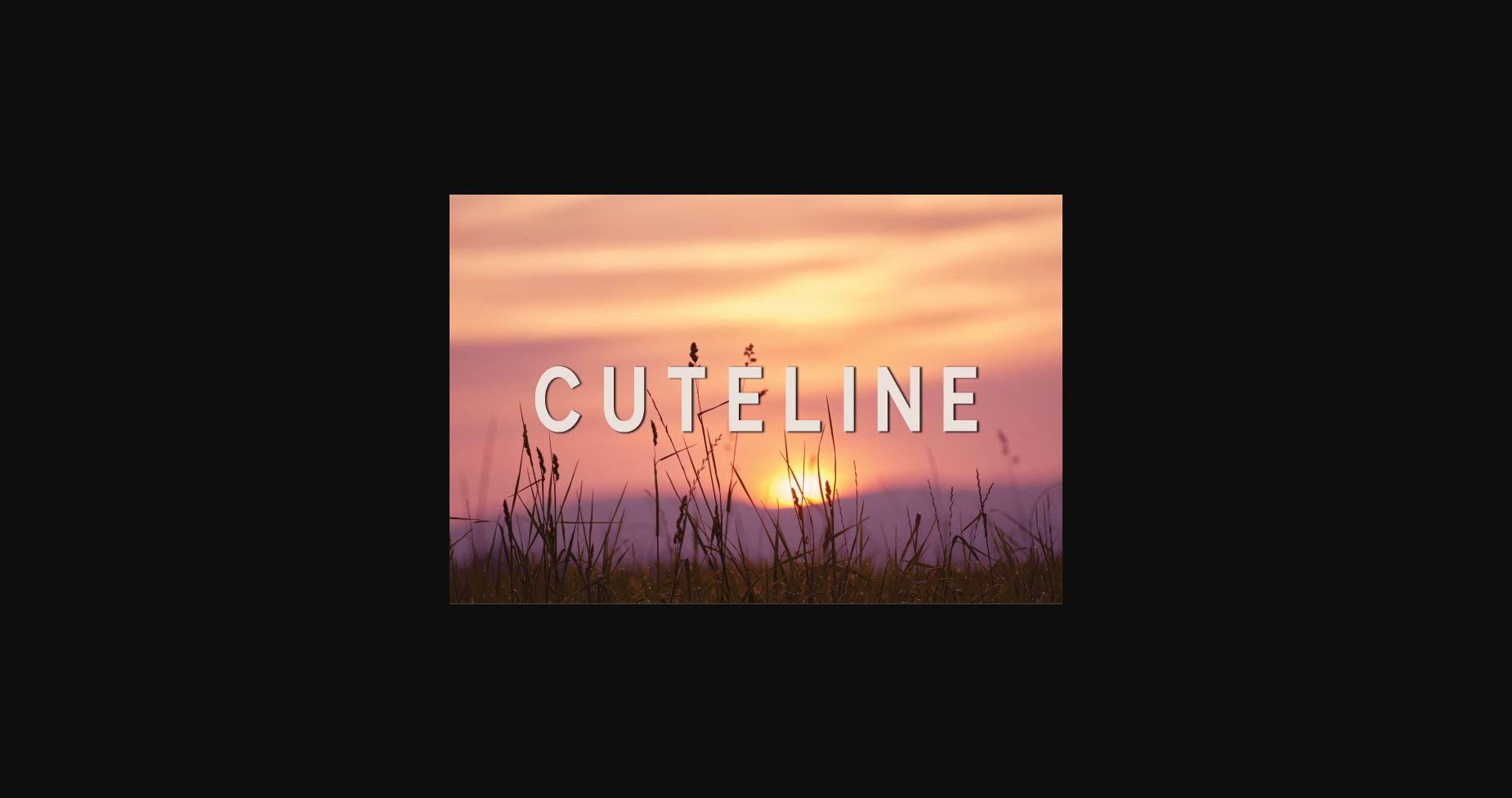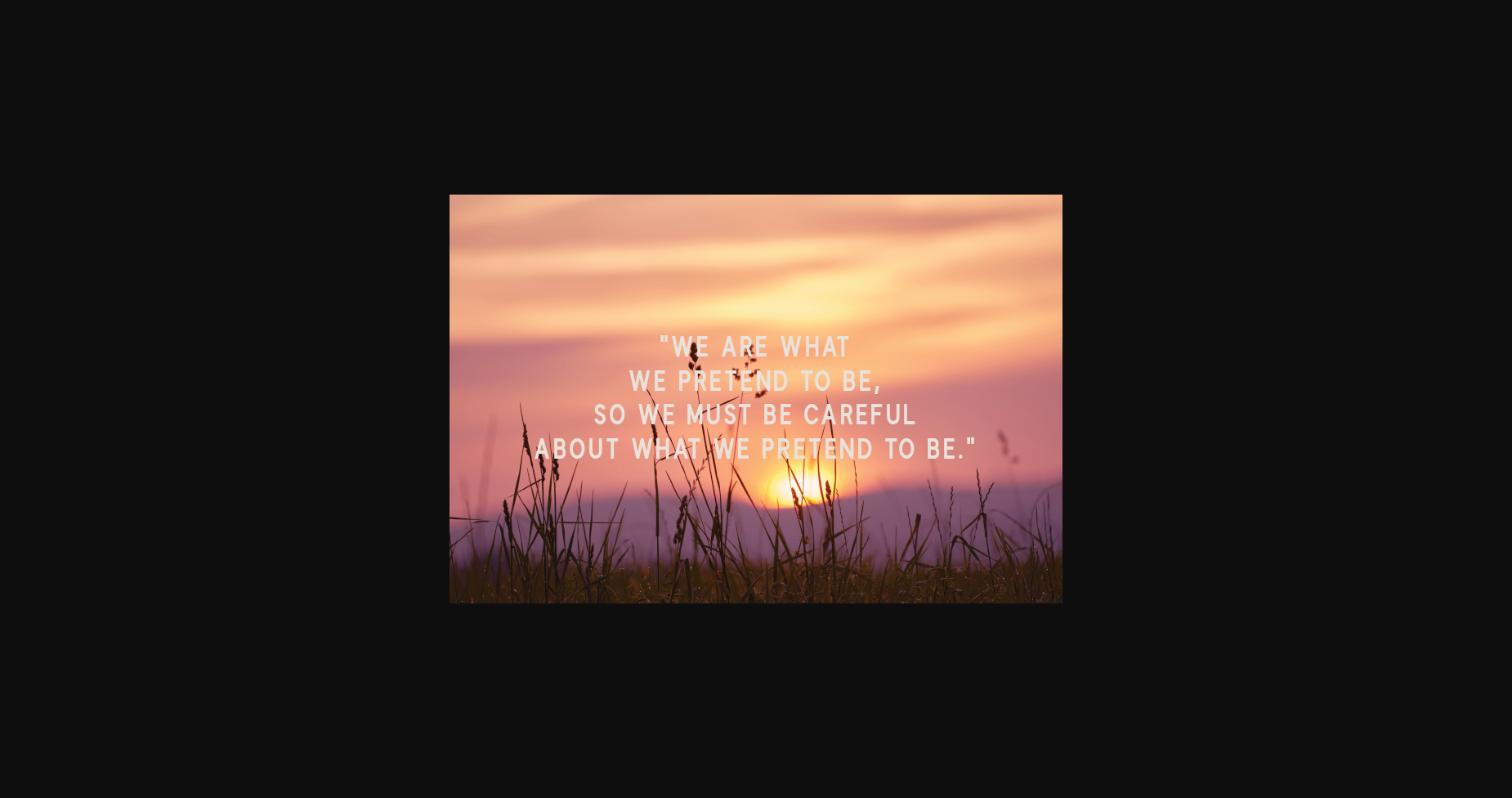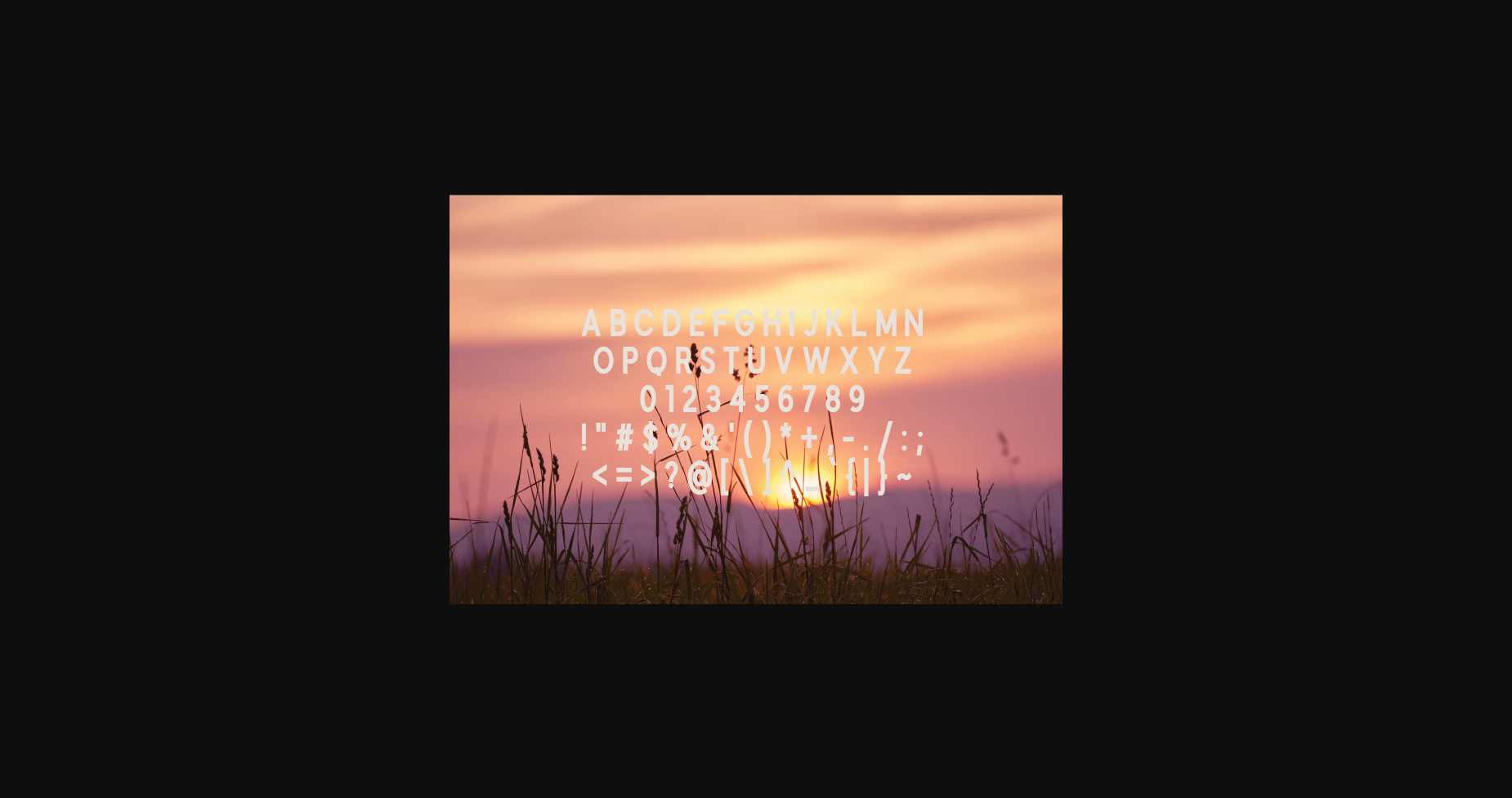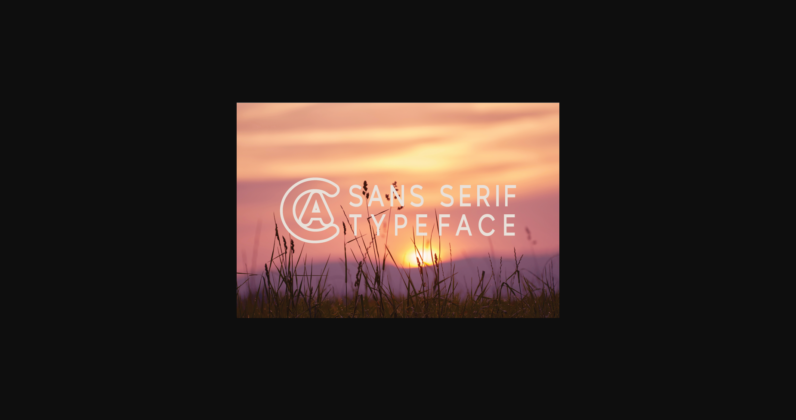
About Cuteline Font
Cuteline is a modern and classy sans serif typeface. This extremely versatile font isperfect for logos, weddings, invitations, quotes, advertisements, print, magazines, and more!